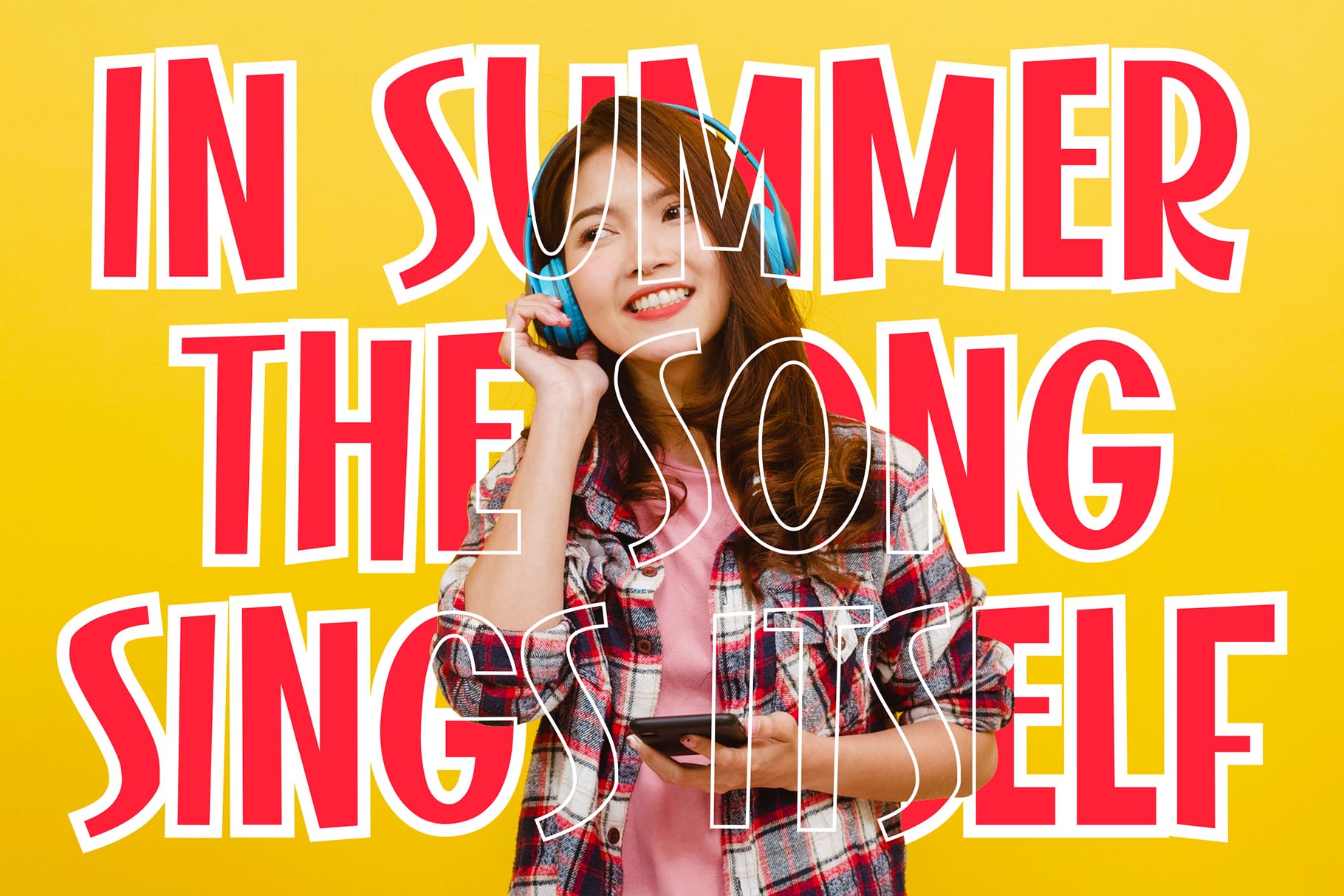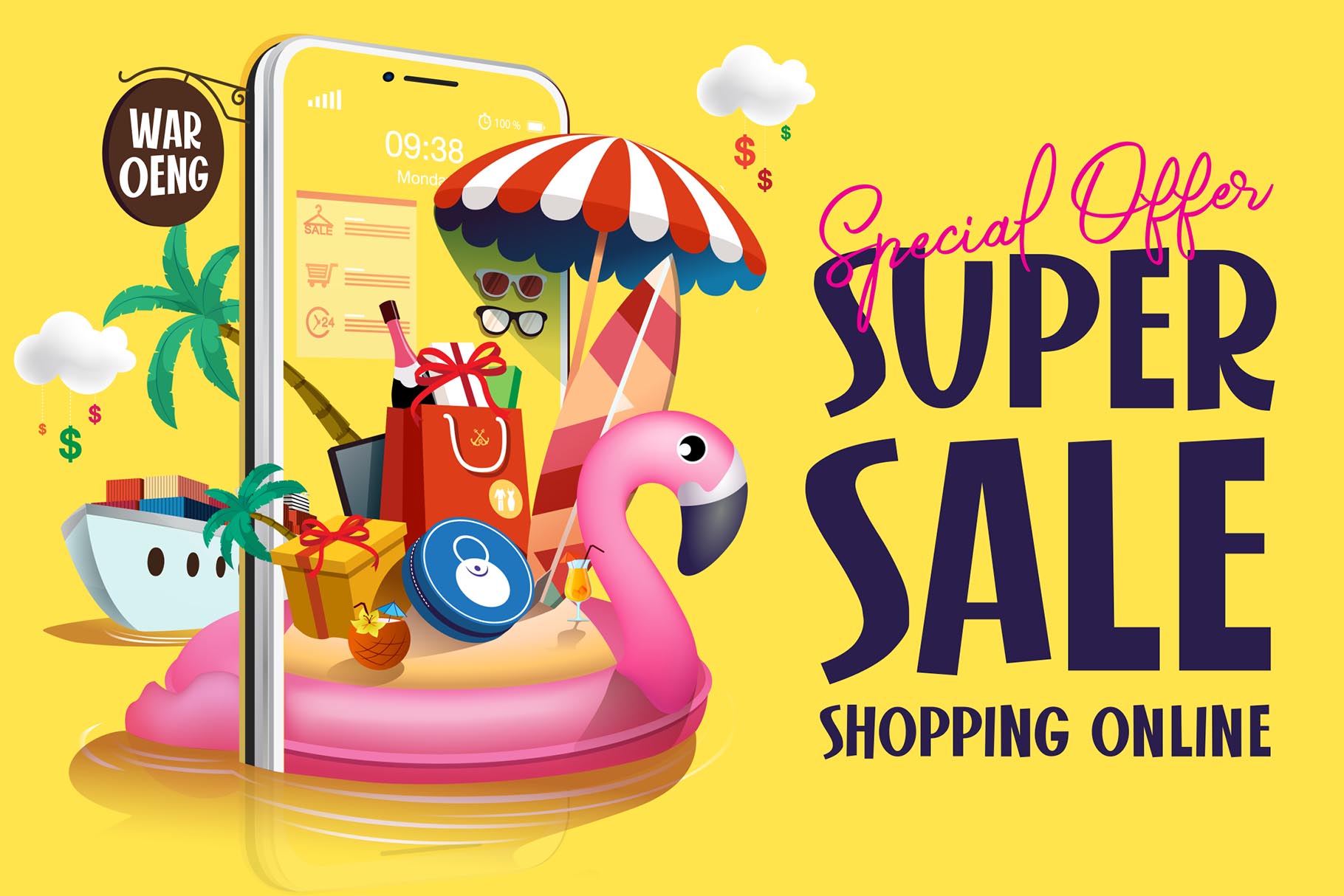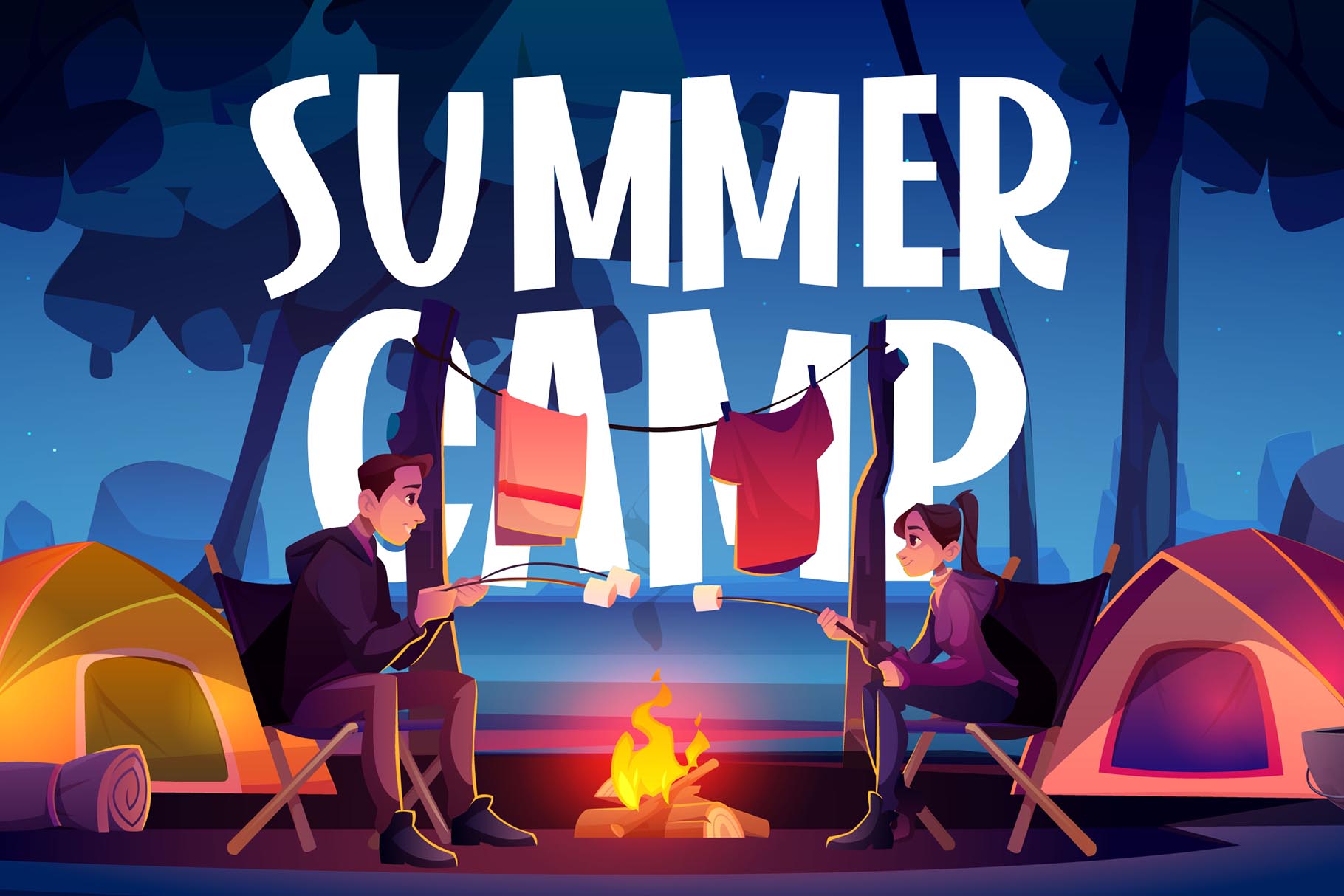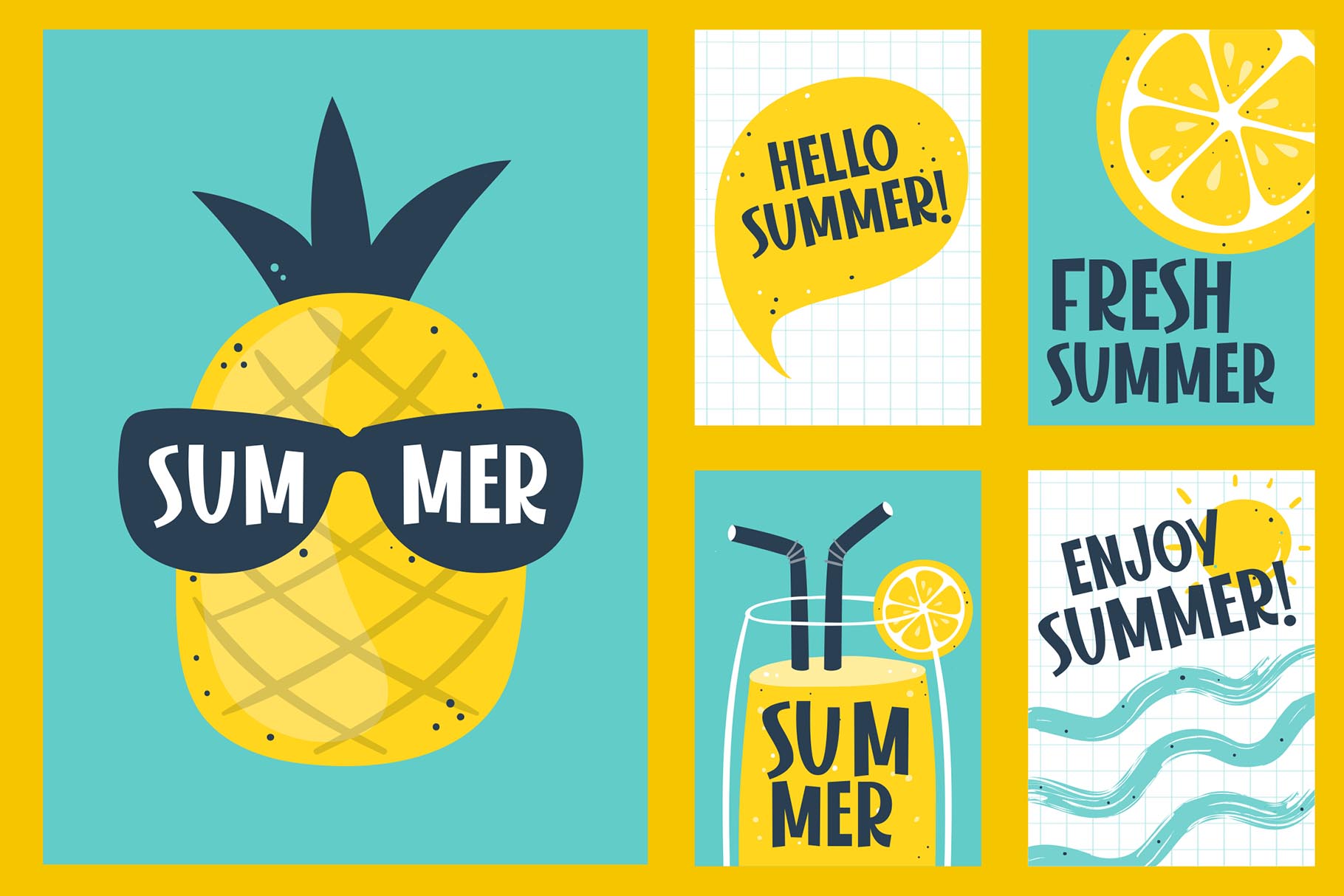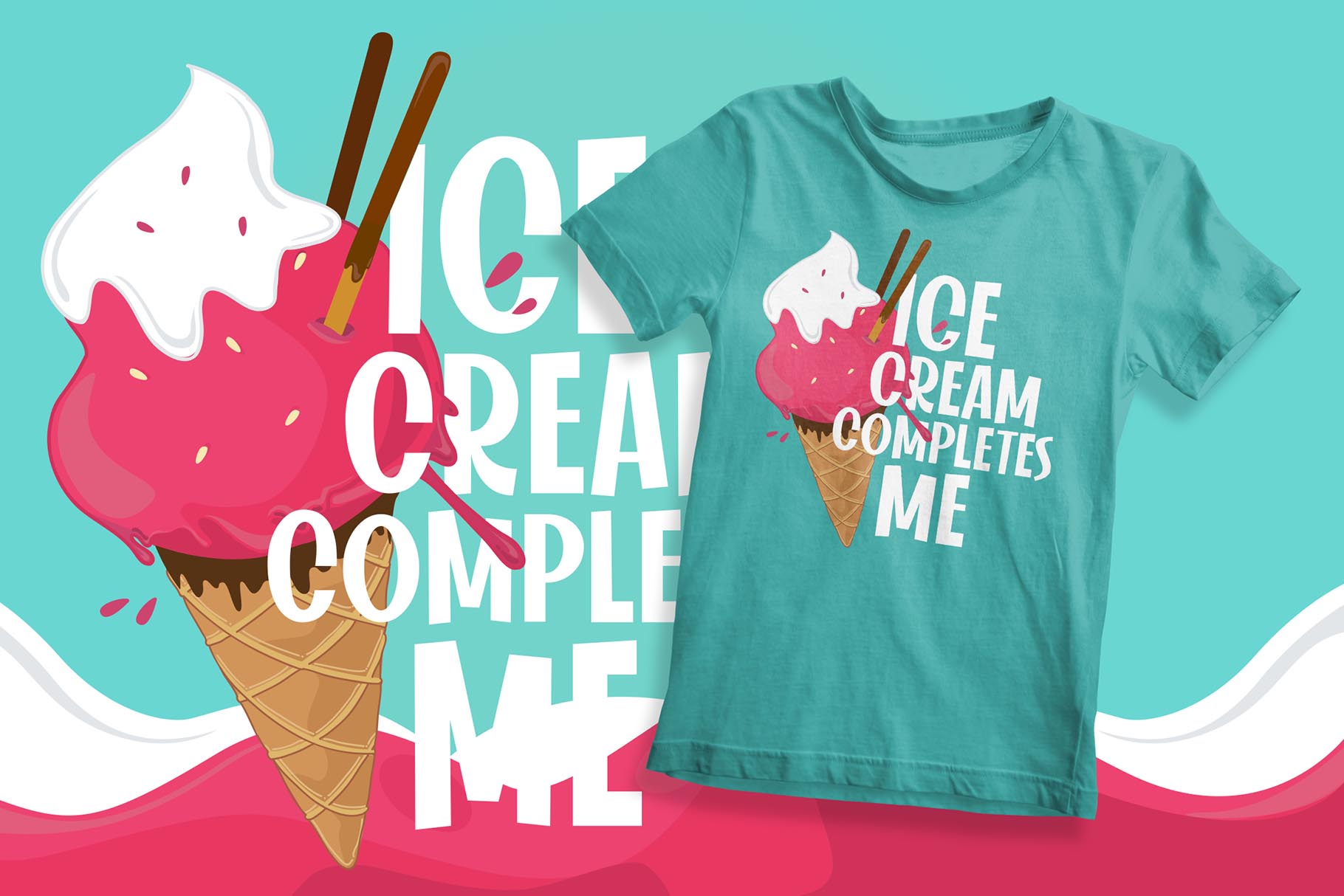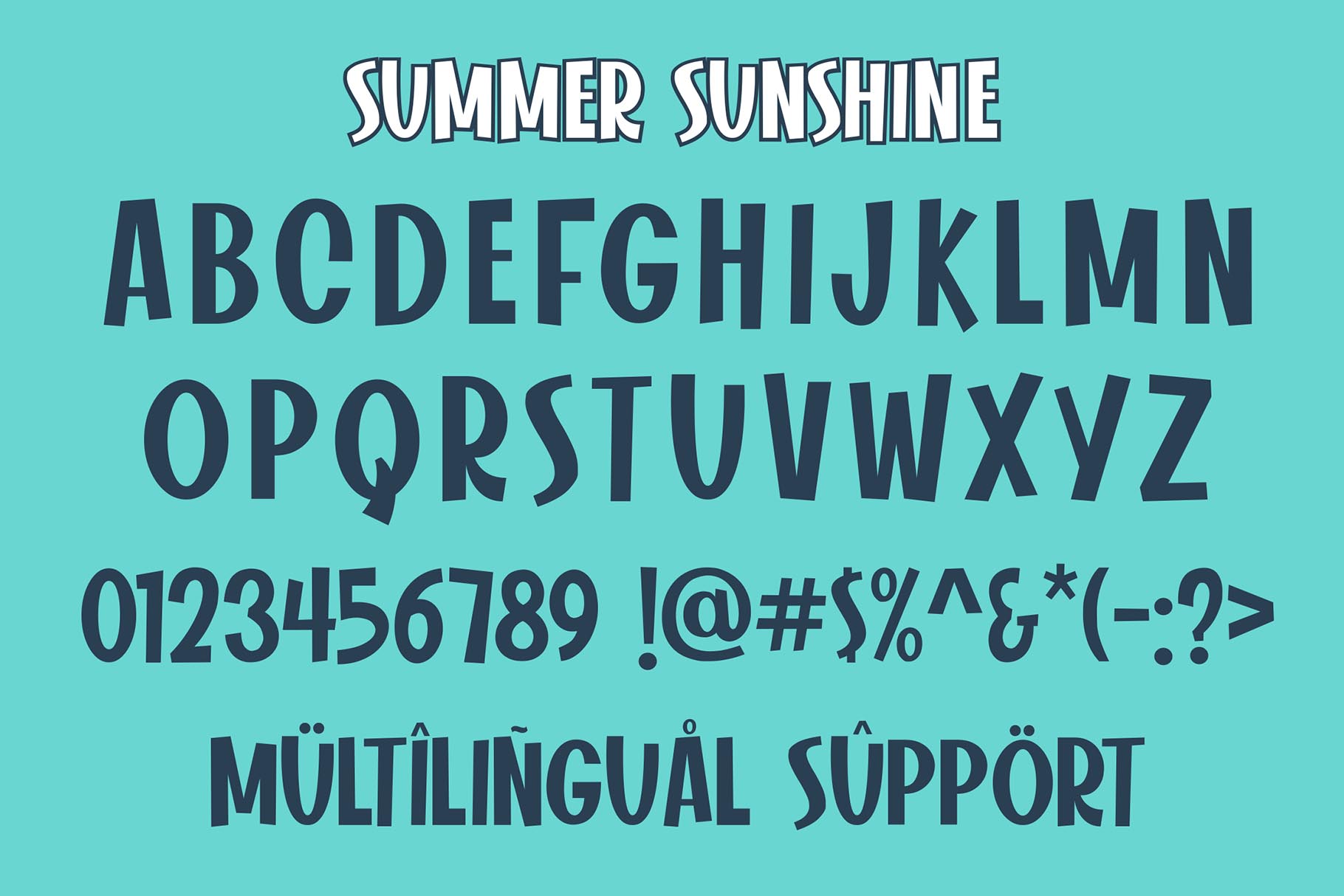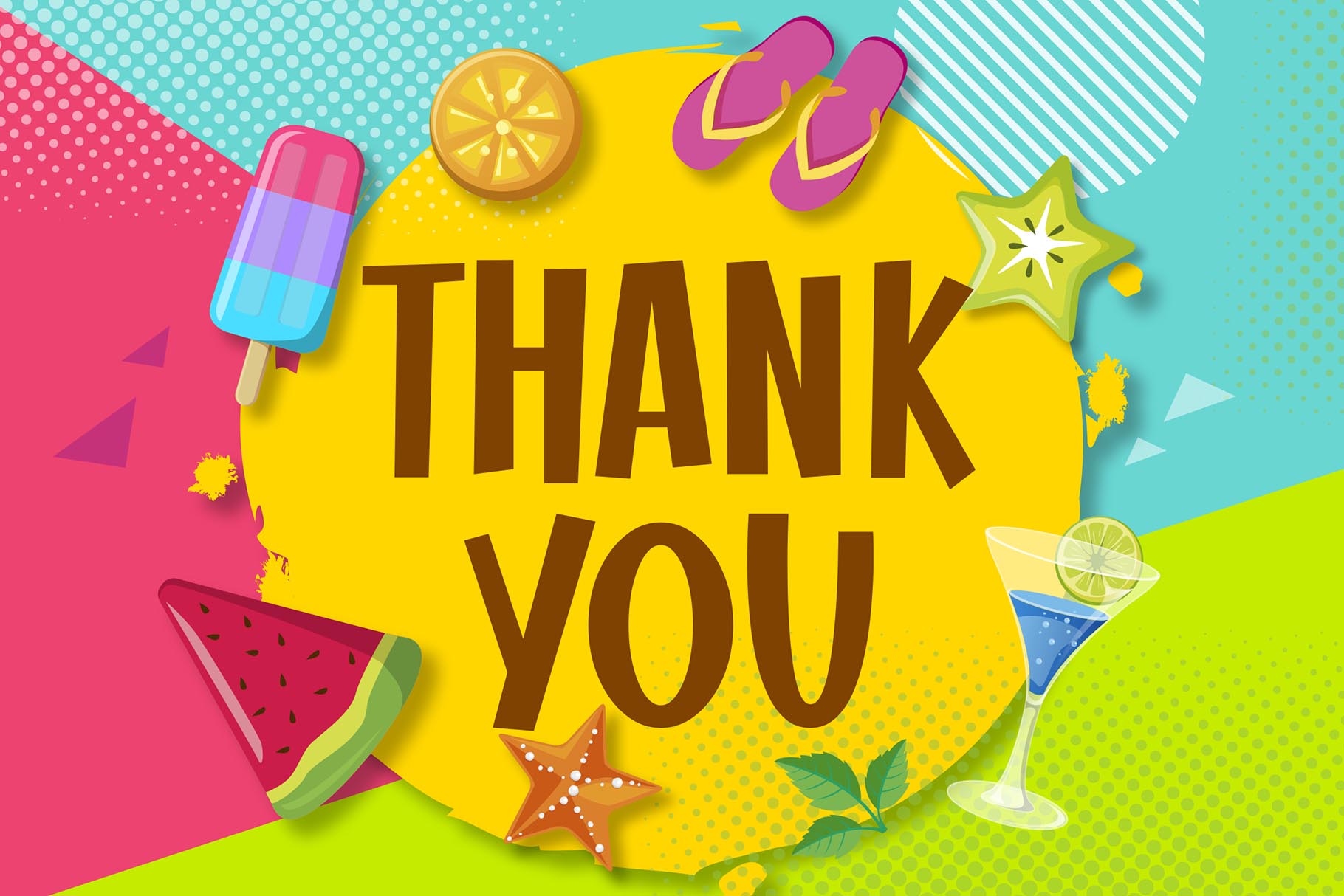
Summer Sunshine
This time for Summer Sunshine!
Made with love and joy, inspired by the warmth of summer. Comic look, so it will make your design more beautiful, cute, fun, and colorful.
• Character Set A-Z (All-caps)
• Numerals and Punctuation (OpenType Standard)
• Accents (Multilingual characters)